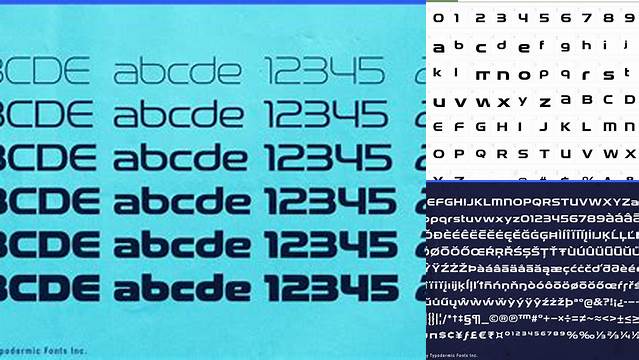
SNASM Font: Free Download Guide
Hey guys! Are you on the hunt for a fresh, eye-catching font to spice up your design projects? Look no further, because we're diving deep into the world of SNASM font free download. This guide is your one-stop shop for everything you need to know about this awesome typeface, from where to grab it to how to make it shine in your work. Let's get started!
What is the SNASM Font, and Why Should You Care?
First things first, what exactly is the SNASM font? Well, it's a modern and stylish font that's perfect for a wide range of design projects. Think websites, logos, posters, social media graphics – you name it! The SNASM font boasts a sleek and contemporary design, making it incredibly versatile and easy to adapt to different styles. It's all about clean lines, a touch of elegance, and a whole lot of readability, which is super important for any design.
So, why should you care about the SNASM font? Because a great font can totally transform your design and make it stand out from the crowd! A well-chosen typeface can instantly communicate your brand's personality and make a lasting impression on your audience. Imagine the difference between a boring, generic font and a font that's got some serious personality. SNASM can provide that extra boost of creativity, it can help you create designs that are visually appealing, professional, and totally on-trend. That's a win-win-win in my book!
But wait, there's more! SNASM isn't just about looks. It's also designed to be incredibly versatile. Whether you're creating a logo for a tech startup, a poster for a music festival, or a website for a fashion brand, SNASM can easily adapt to suit your specific needs. Its readability is top-notch, meaning your audience can easily understand your message, no matter where you use it. The flexibility of SNASM makes it a great choice for designers of all levels, from beginners to seasoned pros. It's all about giving you the freedom to create stunning visuals without any limitations.